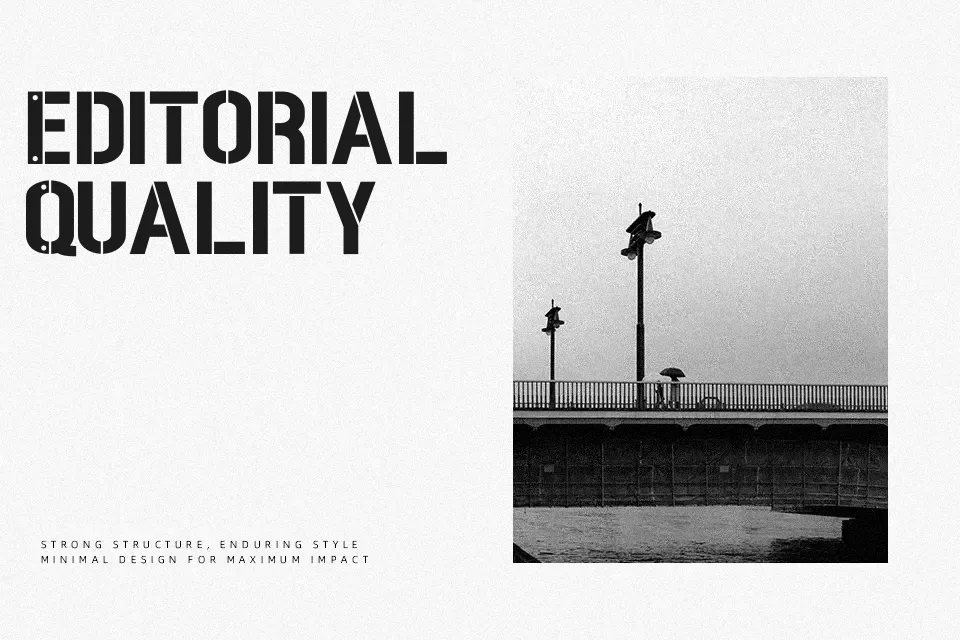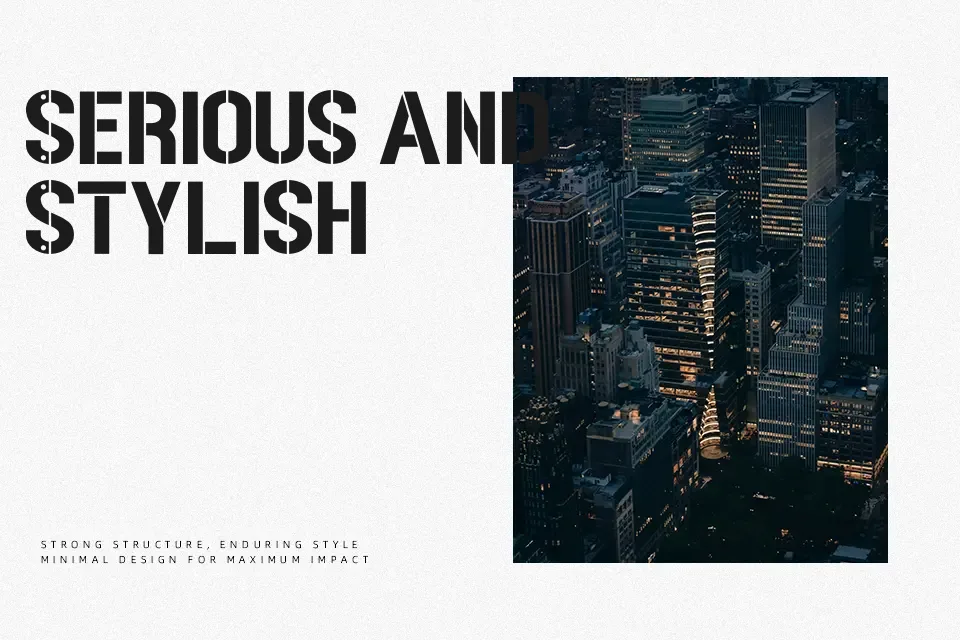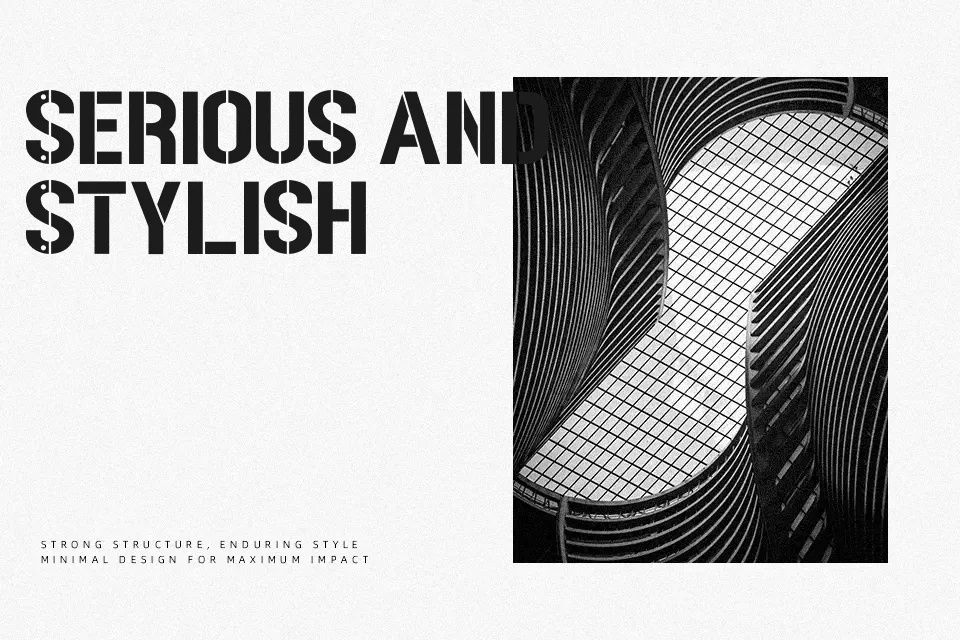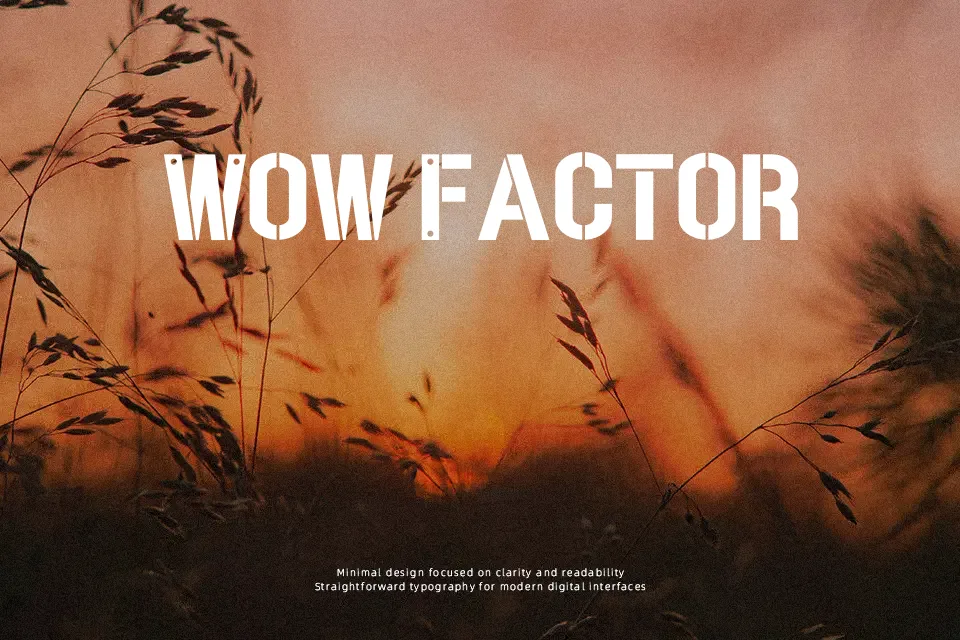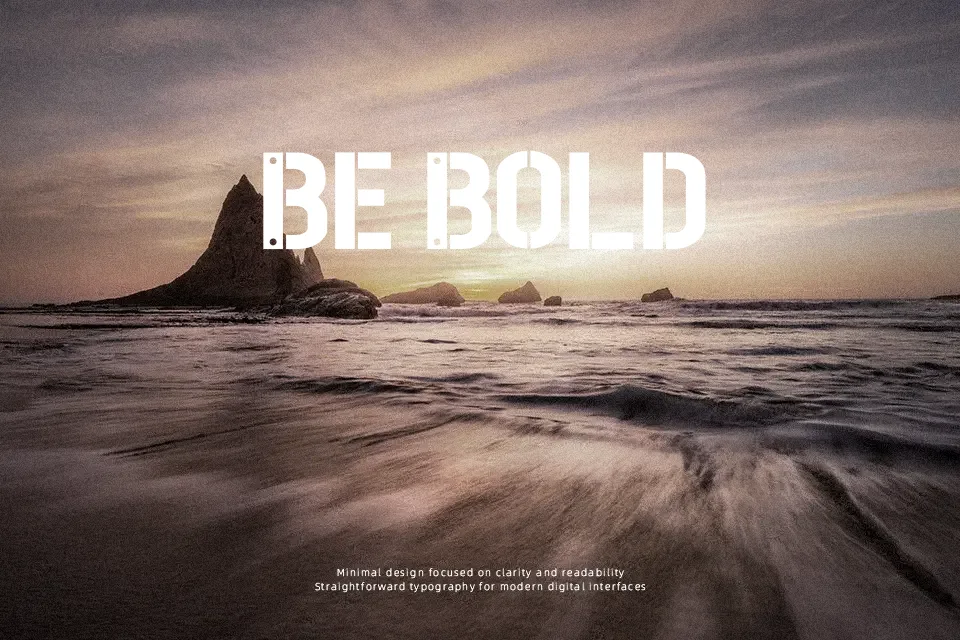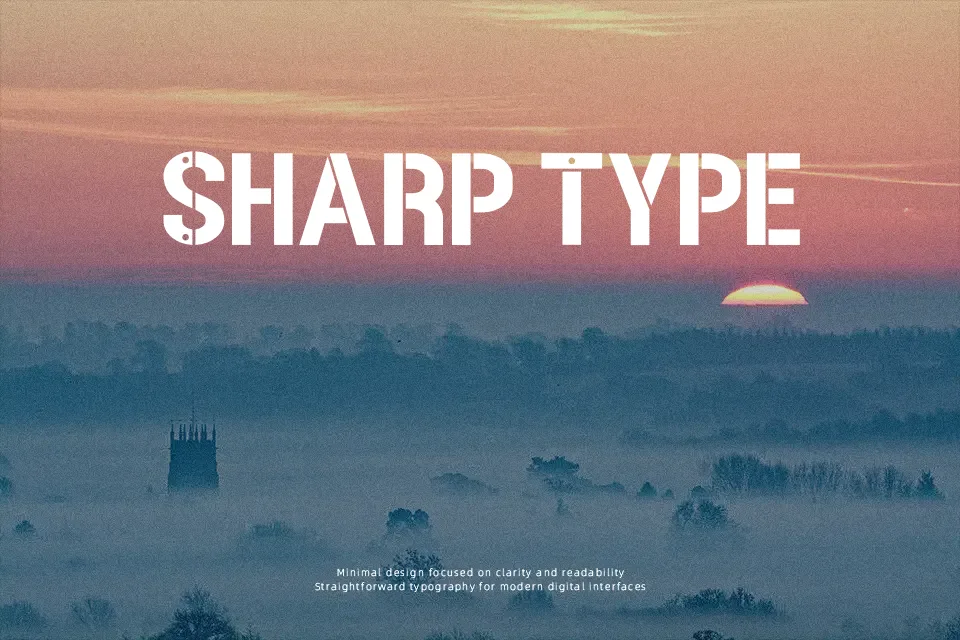
Stenciland Font
Stenciland Font showcases a rugged stencil construction defined by heavy uniform strokes, clean angular terminals, and prominent structural bridge cuts. The character spacing is relatively compact, maintaining solid visual density across uppercase titles. While the letterforms exhibit commanding presence and exceptional legibility at large display scales, the bold weight and cutout details cause glyphs to blur and lose distinction in smaller running text. This typeface performs best when displayed at larger sizes, such as billboard headings, tactical gear packaging, and esports promotional banners. However, the heavy ink density and decorative cutouts make it poorly suited for dense paragraphs or multi-page editorial body text.
Best For: military apparel graphics, tactical gear packaging, esports team logos, poster headlines
Not Ideal For: continuous body text, mobile interface labels, dense editorial layouts, spreadsheet data
Perfect for gaming, headline, and logo, with a bold and display style.